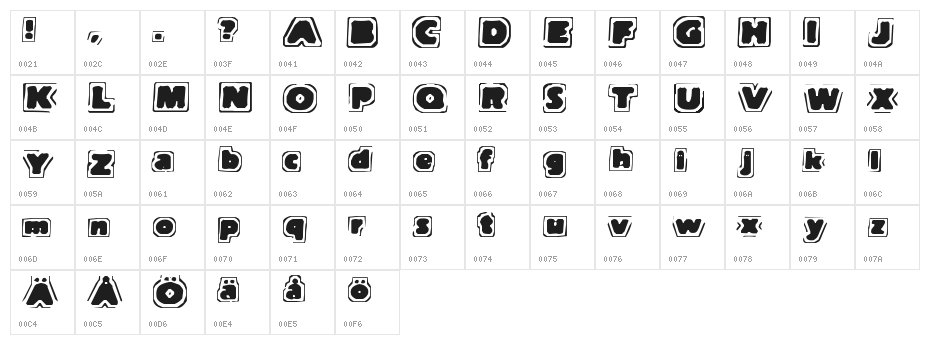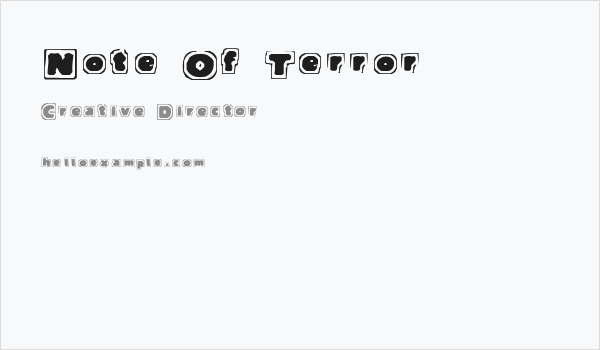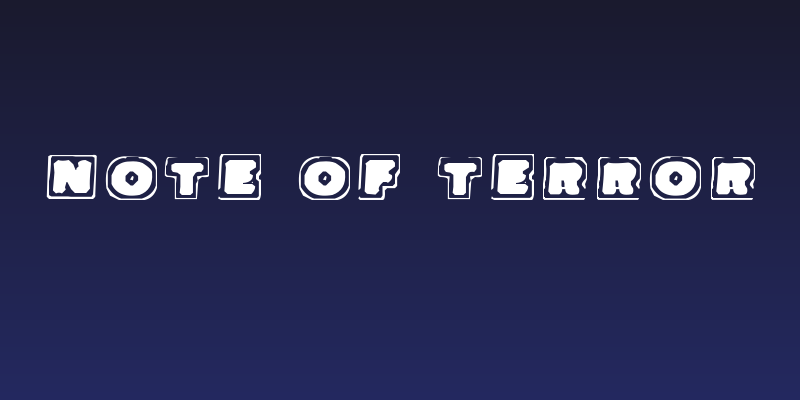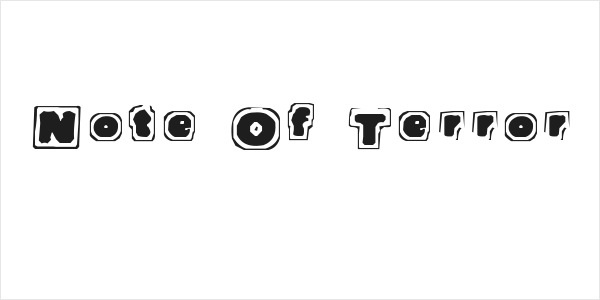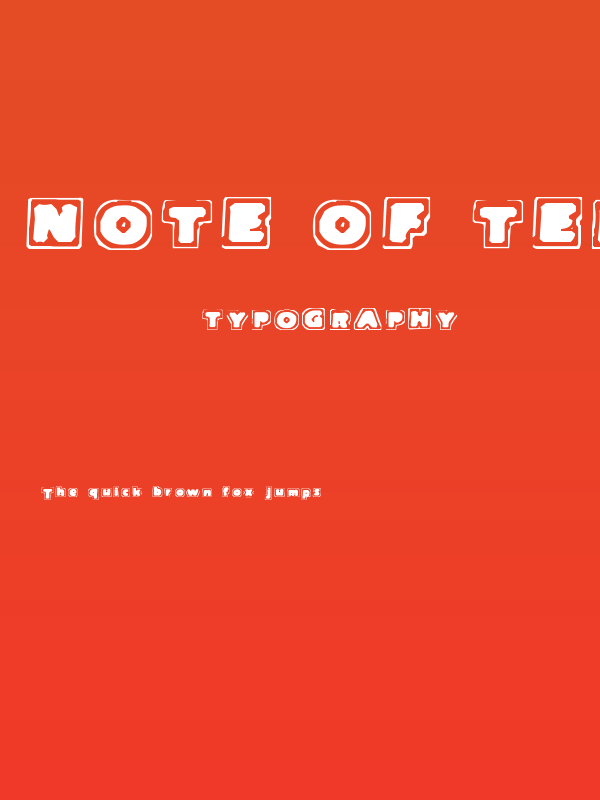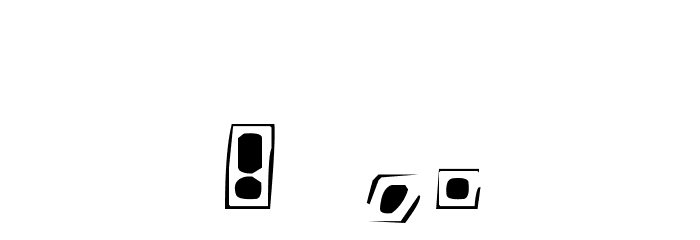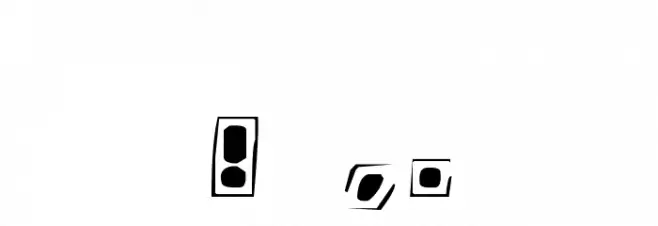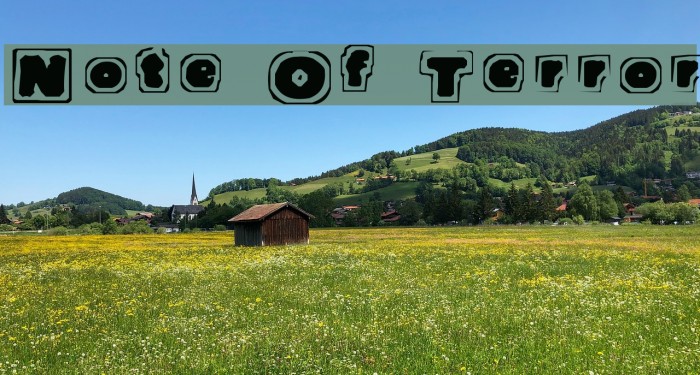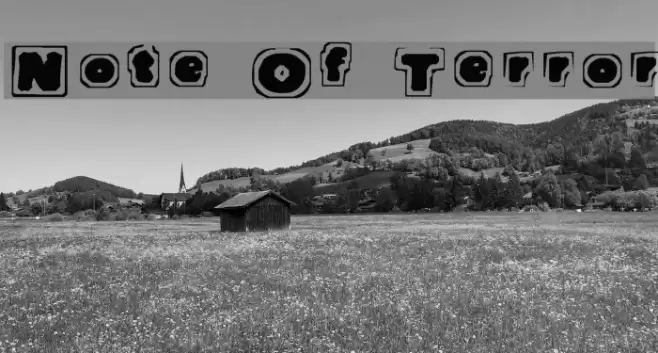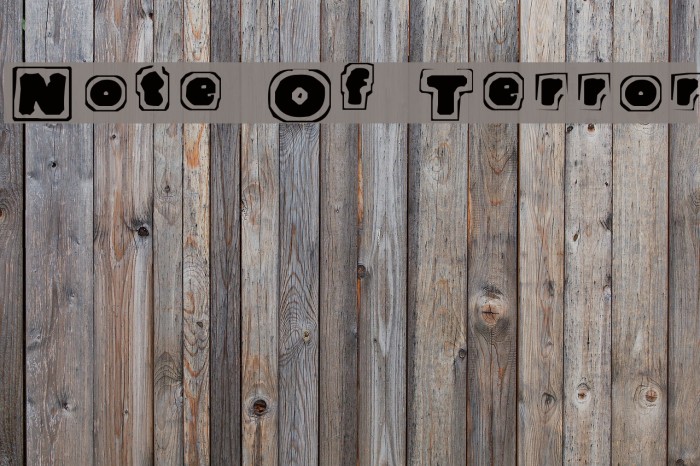
Note Of Terror Font
Note Of Terror Description
This font features a bold and playful design with a distinct outline around each character, giving it a cartoonish and slightly chaotic appearance. The letters are uppercase and lowercase, with a consistent thickness that creates a strong visual impact. The style is reminiscent of comic book lettering, with exaggerated curves and angles that add a sense of movement and energy. The special characters, such as the exclamation mark and question mark, maintain the same bold outline, enhancing the overall cohesive look. This font is perfect for projects that require a fun and dynamic aesthetic.
| Overall Style | Playful, Cartoonish |
| Use Case | Headlines, Posters, Branding |
| Proposed Projects | Ideal for comic books, children's books, posters, and playful branding. |